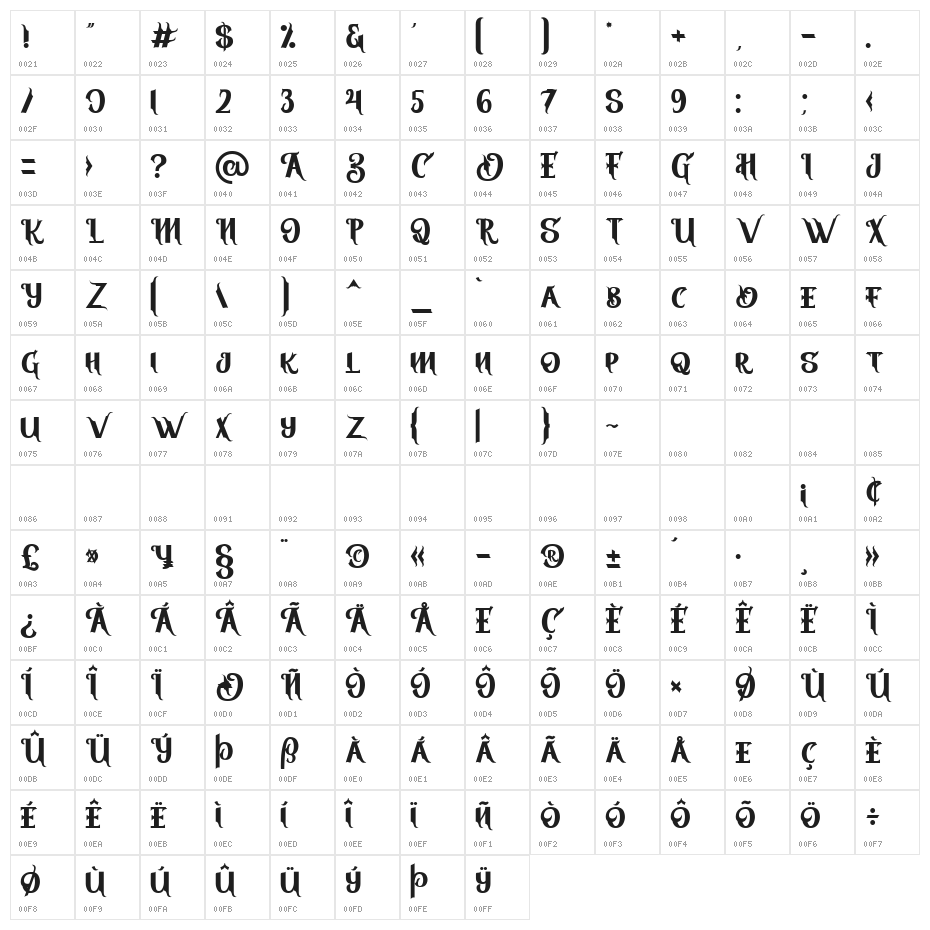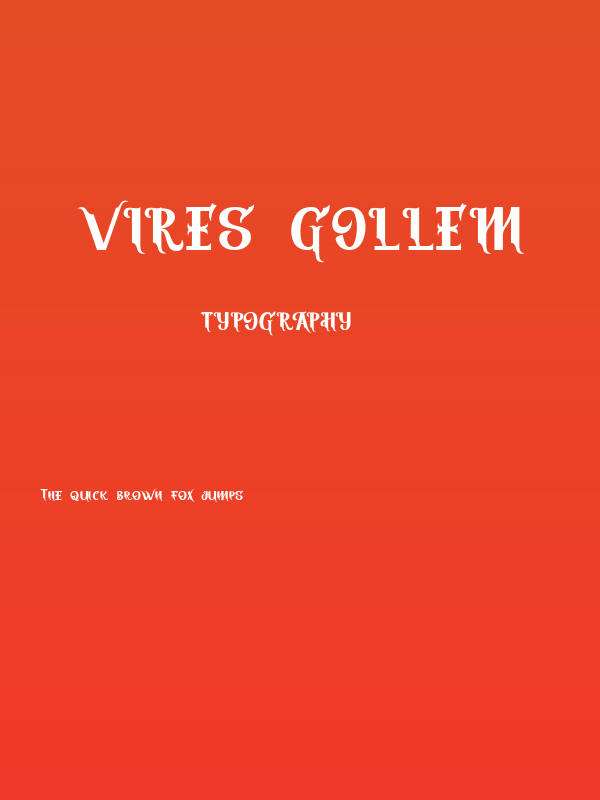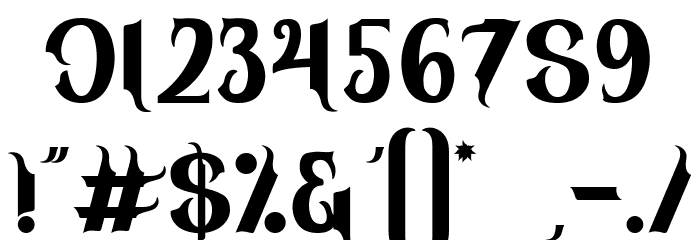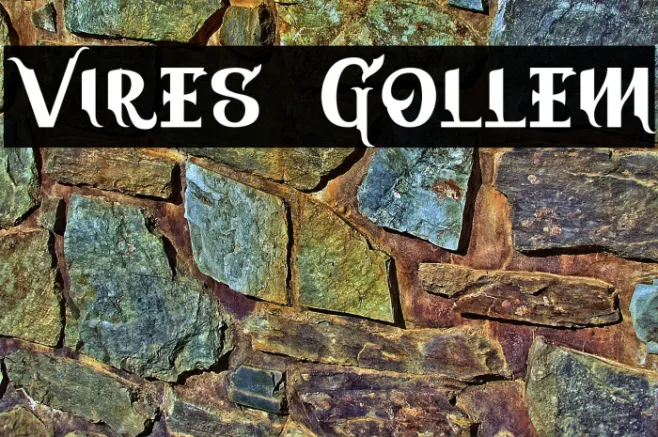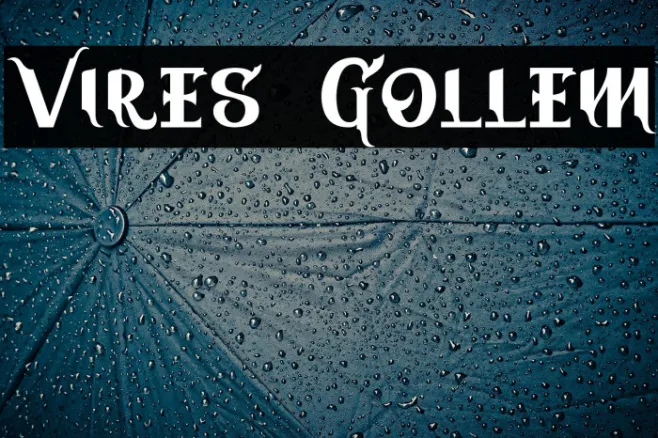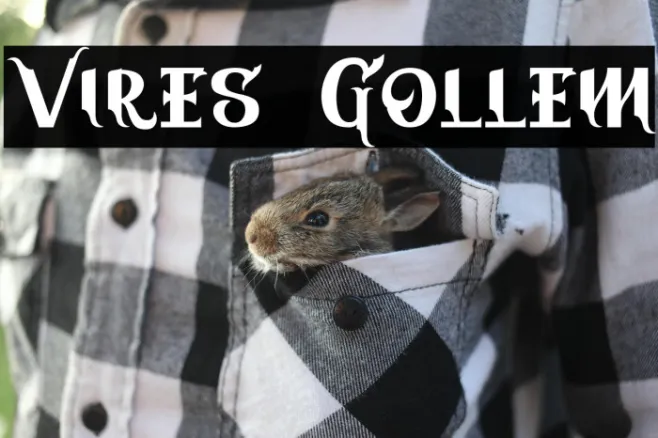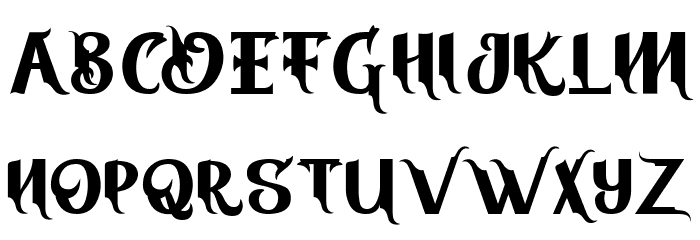
Vires Gollem Font
Vires Gollem Description
This font features a bold and dramatic style with intricate, sharp edges and a gothic flair. The uppercase letters are particularly striking, with elaborate curves and pointed serifs that give them a medieval appearance. The lowercase letters maintain this aesthetic, offering a consistent look throughout. Numbers are equally bold, with a distinctive flair that matches the overall theme. Special characters are designed to complement the font's unique style, making it suitable for creative and expressive design projects.
| Overall Style | Gothic, Medieval |
| Proposed Projects | Ideal for use in fantasy-themed designs, book covers, posters, and branding that requires a dramatic and medieval touch. |